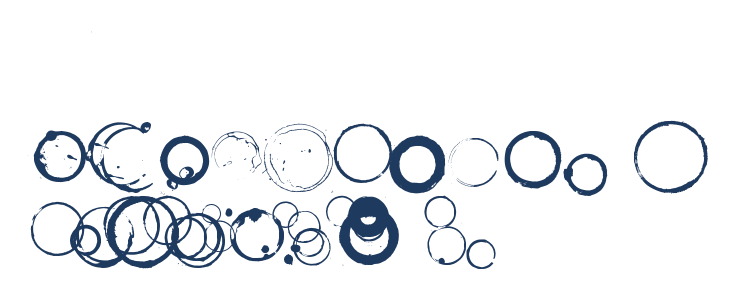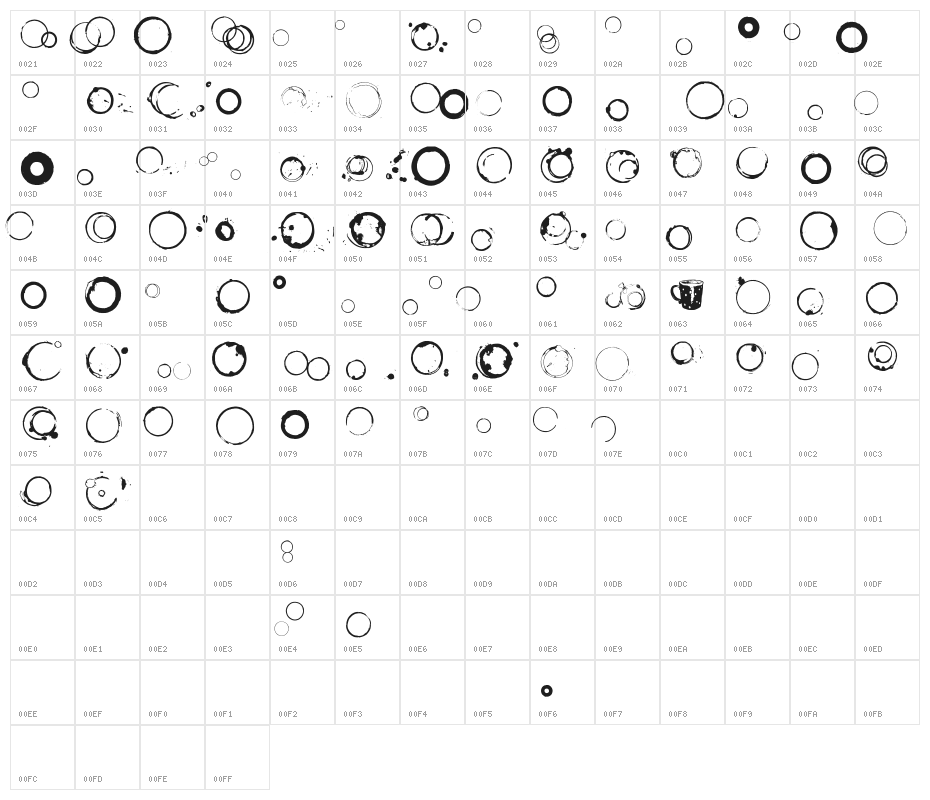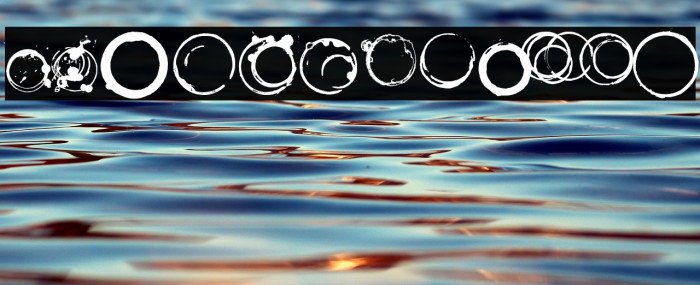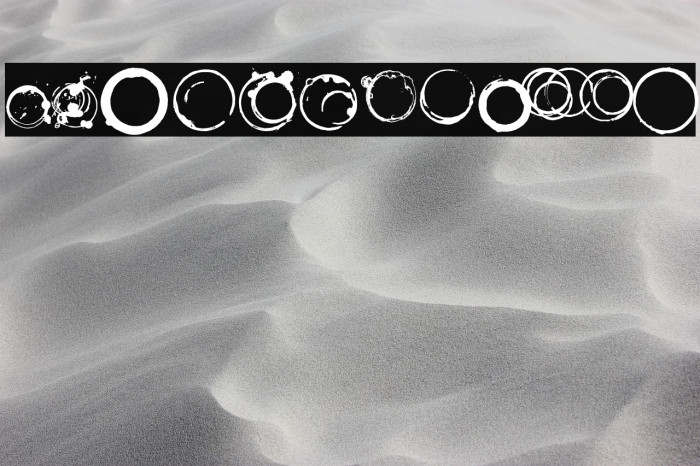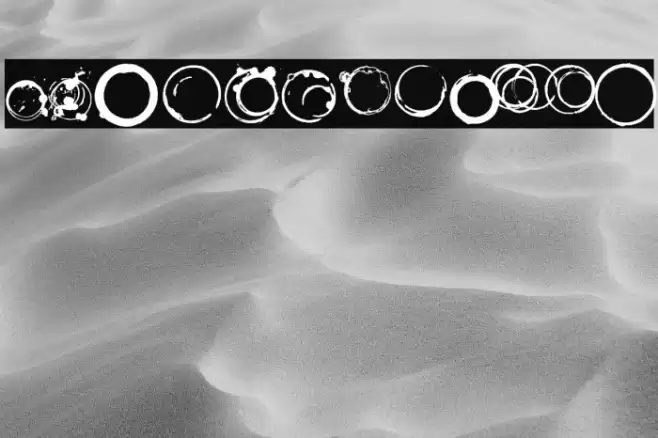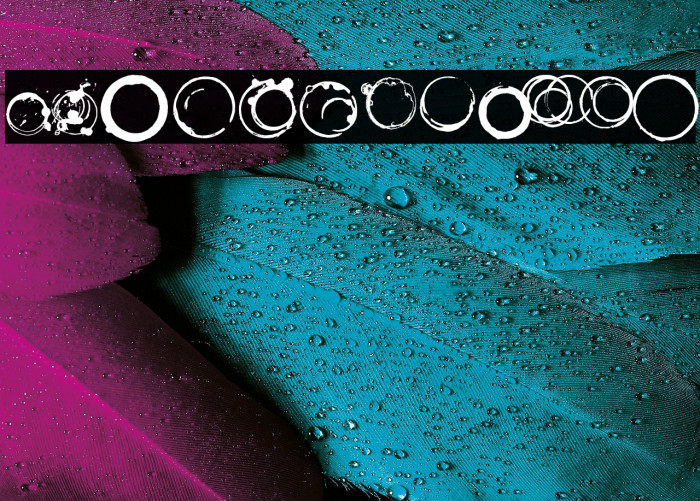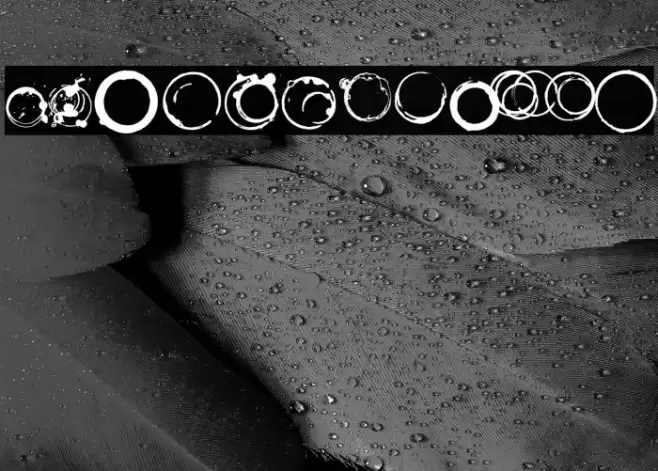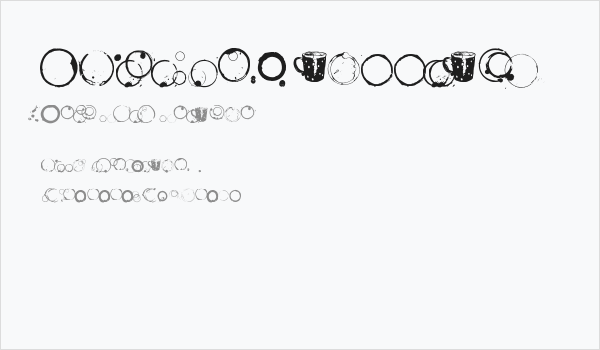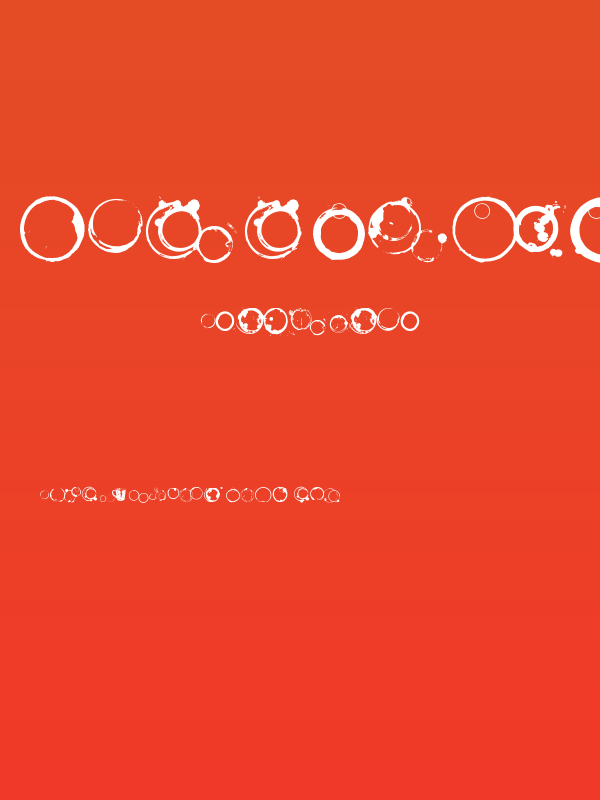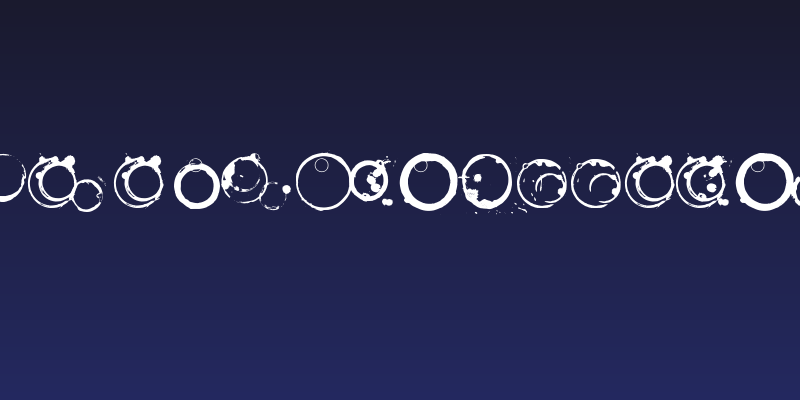
Where is my coffee cup Font
Where is my coffee cup Description
A playful, decorative font composed of coffee cup ring stains and splatters, with each character represented by a unique circular or semi-circular coffee mark. The style is organic, irregular, and expressive, evoking the look of accidental coffee stains on paper.
| Overall Style | Decorative, Playful, Organic |
| Use Case | Logos, Headlines, Posters, Themed graphics |
| Proposed Projects | CafΓΒ© branding, coffee shop menus, playful posters, event invitations, packaging for coffee products, creative social media graphics. |